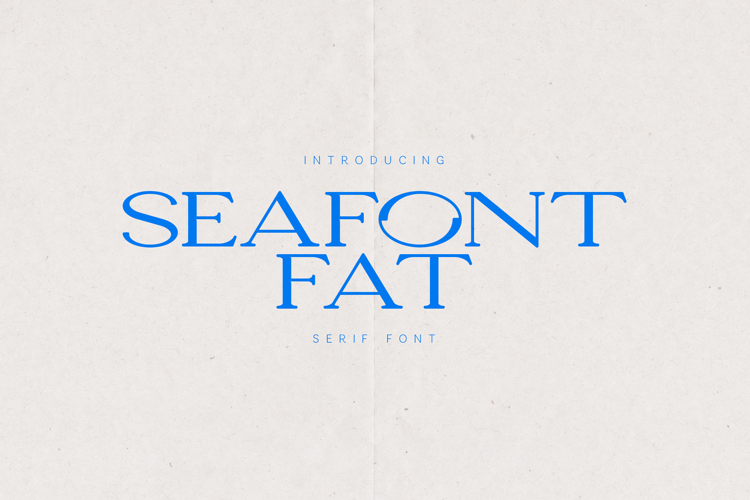
Seafont Fat Bold Display Serif Font
Seafont Fat is a bold display serif font designed for strong headlines and confident visual statements. With its wide proportions, softened curves, and balanced contrast, Seafont Fat blends classic serif structure with a modern, approachable feel.
This font is ideal for posters, editorial layouts, branding, packaging, book covers, magazine titles, and statement typography where impact and clarity are equally important. Its generous letterforms give designs room to breathe while maintaining a powerful, premium presence.
Seafont Fat performs especially well at large sizes, making it perfect for display use in both print and digital environments. The subtle softness in its shapes prevents it from feeling rigid, allowing it to work across contemporary, cultural, and creative projects.
The font includes uppercase and lowercase letters, numerals, punctuation, symbols, and extensive multilingual support, making it suitable for international and professional use.
If you’re looking for a serif font that is bold without being aggressive and modern without losing elegance, Seafont Fatdelivers confident typography with character.